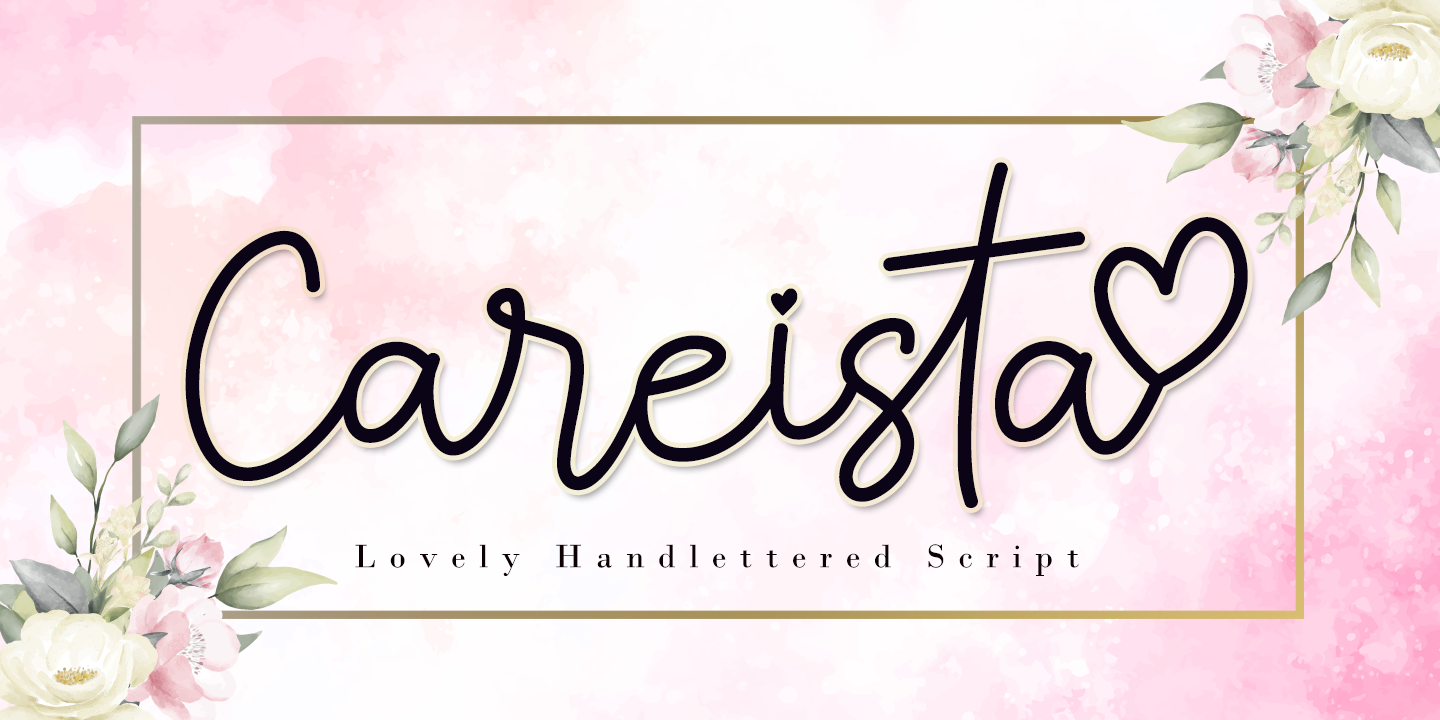
Careista Font is ideal for healthcare facility branding, medical practice communications, wellness center signage, nursing home materials, patient care documentation, medical spa branding, health insurance promotions, caregiving service logos, therapeutic clinic identities, home healthcare communications, medical equipment packaging, and compassionate healthcare campaigns. This caring typeface excels in applications requiring medical compassion and healthcare professionalism, making it perfect for hospitals, clinics, healthcare providers, and organizations emphasizing patient care and medical excellence with a human touch.
What makes Careista Font exciting is its exceptional ability to convey medical compassion and caring professionalism through nurturing typography. The font features gentle letterforms with caring proportions and compassionate character variations that instantly communicate healthcare empathy and professional medical care. Its balanced construction and caring design create an atmosphere of medical trust and patient comfort, while maintaining excellent readability across all healthcare applications. The font's distinctive personality embodies the essence of compassionate care and medical dedication, making it perfect for brands seeking to establish trustworthy, patient-centered identities that resonate with patients and healthcare professionals seeking caring medical experiences.
The Careista Font family typically includes multiple weights such as Light, Regular, Medium, Bold, and Black variations, along with their corresponding italic styles. Many collections also feature caring alternates, medical-inspired ligatures, and compassionate decorative elements that enhance the font's healthcare character. Some comprehensive packages include medical symbols, caring borders, and health-focused glyphs that provide complete design flexibility for healthcare and medical projects promoting patient care and medical compassion.
Careista Font Free Download represents the perfect fusion of healthcare aesthetics and typographic excellence. This remarkable typeface brings instant trust and medical appeal to any project, making it particularly valuable for healthcare brands, medical facilities, and caring organizations seeking to establish compassionate, patient-focused brand identities. The font's versatile nature allows it to perform caringly in both professional medical documentation and patient-facing healthcare communications.
Designers value Careista Font for its ability to instantly convey medical compassion, healthcare professionalism, and patient care that builds trust and comfort with patients seeking quality medical care and compassionate treatment. The font's excellent construction ensures smooth performance across various media and applications, while its caring appeal adds immediate healthcare authenticity to any design project. The comprehensive character set includes standard Latin characters, numerals, punctuation marks, and special symbols, making it suitable for medical communications, healthcare publications, and diverse patient care applications.
This exceptional typeface successfully captures the essence of compassionate healthcare and medical care while offering modern functionality, providing designers with an authentic tool for creating memorable and impactful communications that resonate with patients, healthcare providers, and audiences seeking caring medical experiences and professional healthcare services.